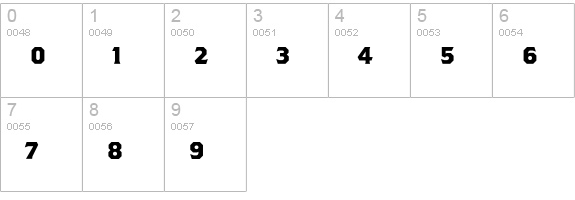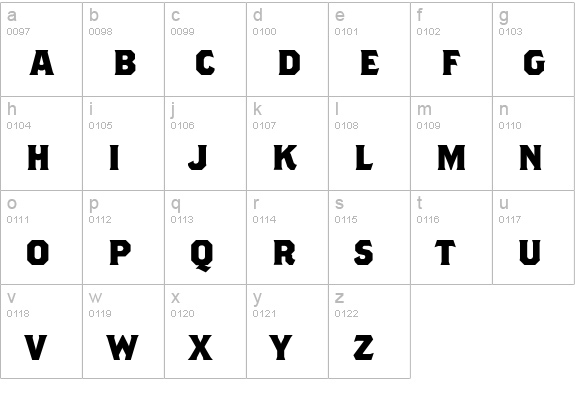
BrothersBoldAlternates Font Details
BrothersBoldAlternates font is a striking and versatile typeface designed to make a bold statement in your designs. With its strong, clean lines and distinctive letterforms, this font is perfect for creating impactful headings, logos, posters, and more. The alternate characters add an extra touch of personality and style to your text, giving you even more creative options to play with. The best part? BrothersBoldAlternates font is completely free to download at FontsMarket.com. Whether you're working on a personal project or a professional design, this font is a fantastic choice that won't cost you a thing. Don't miss out on the opportunity to enhance your work with the unique charm and character of BrothersBoldAlternates font – get your free download today!